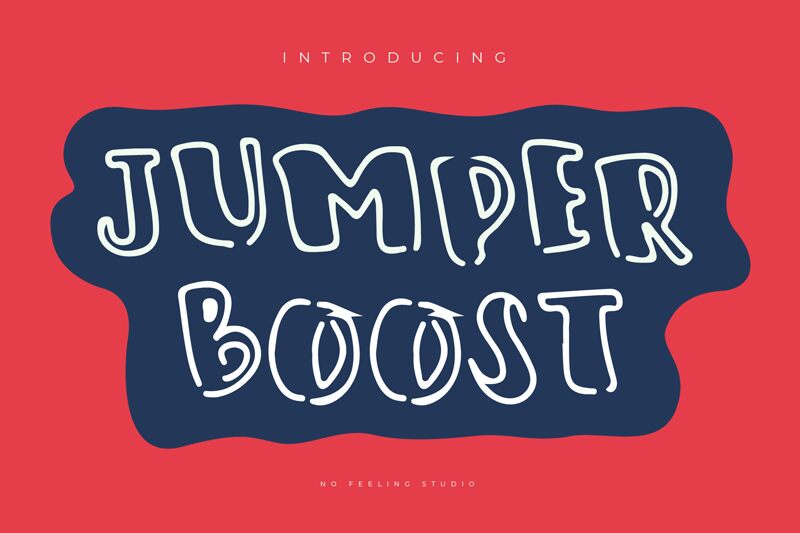
Jumper Boost is a unique hand-drawn display font, inspired by soap bubble designed by Dimas Asshiddiq of No Feeling Studio. The font is perfect for branding projects, logos, posters, covers, social media posts, and many more!
Jumper Boost